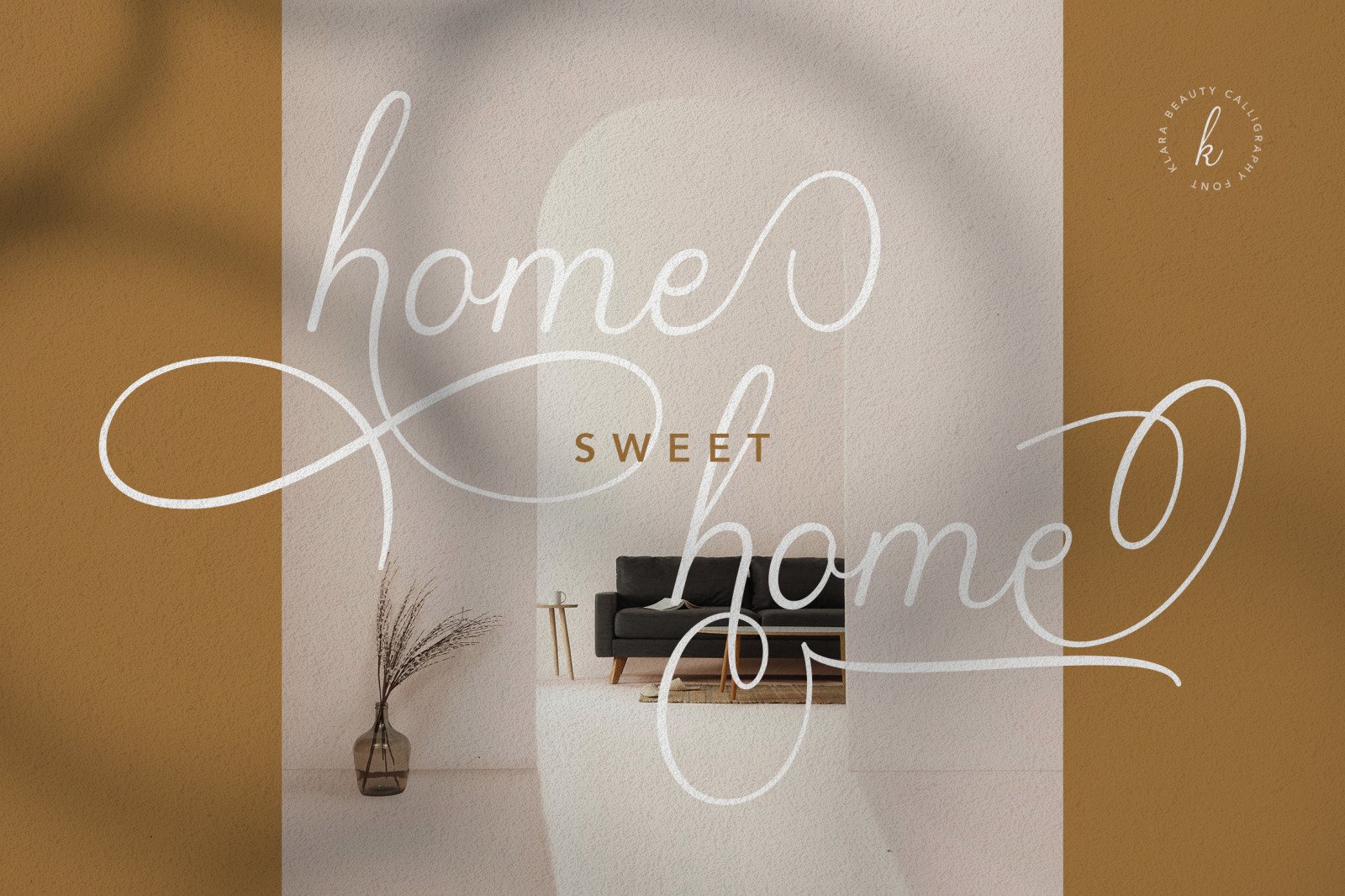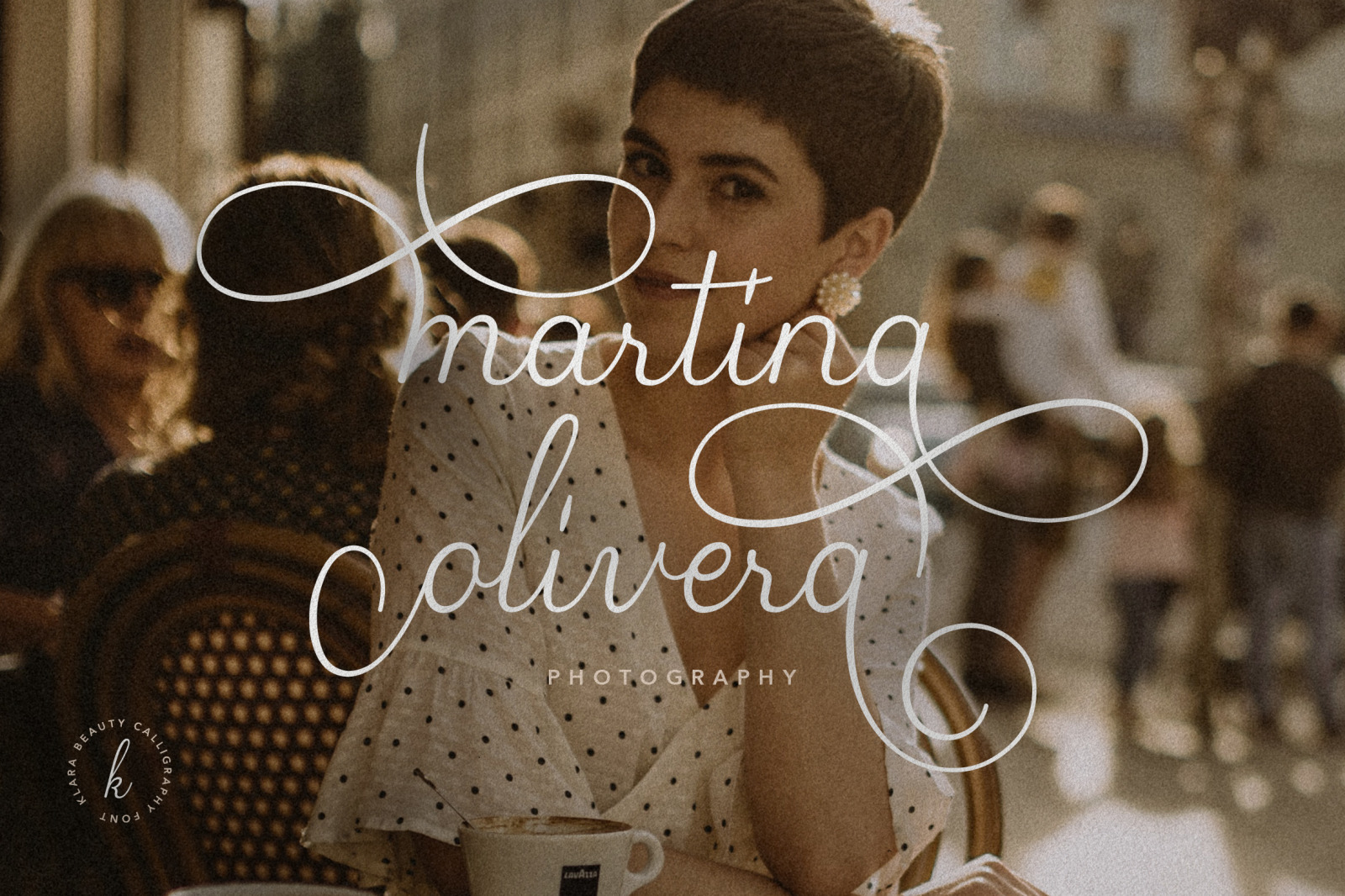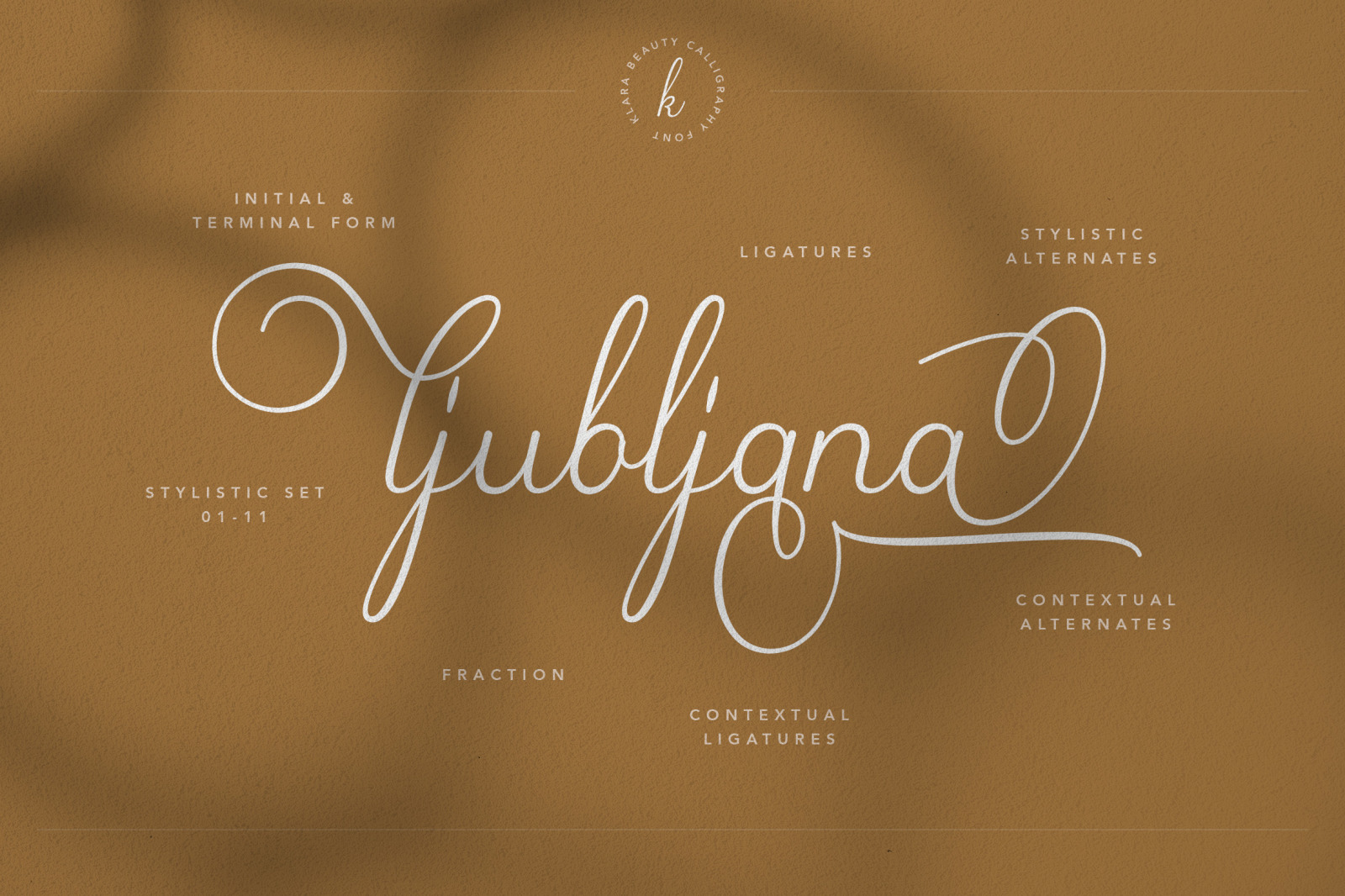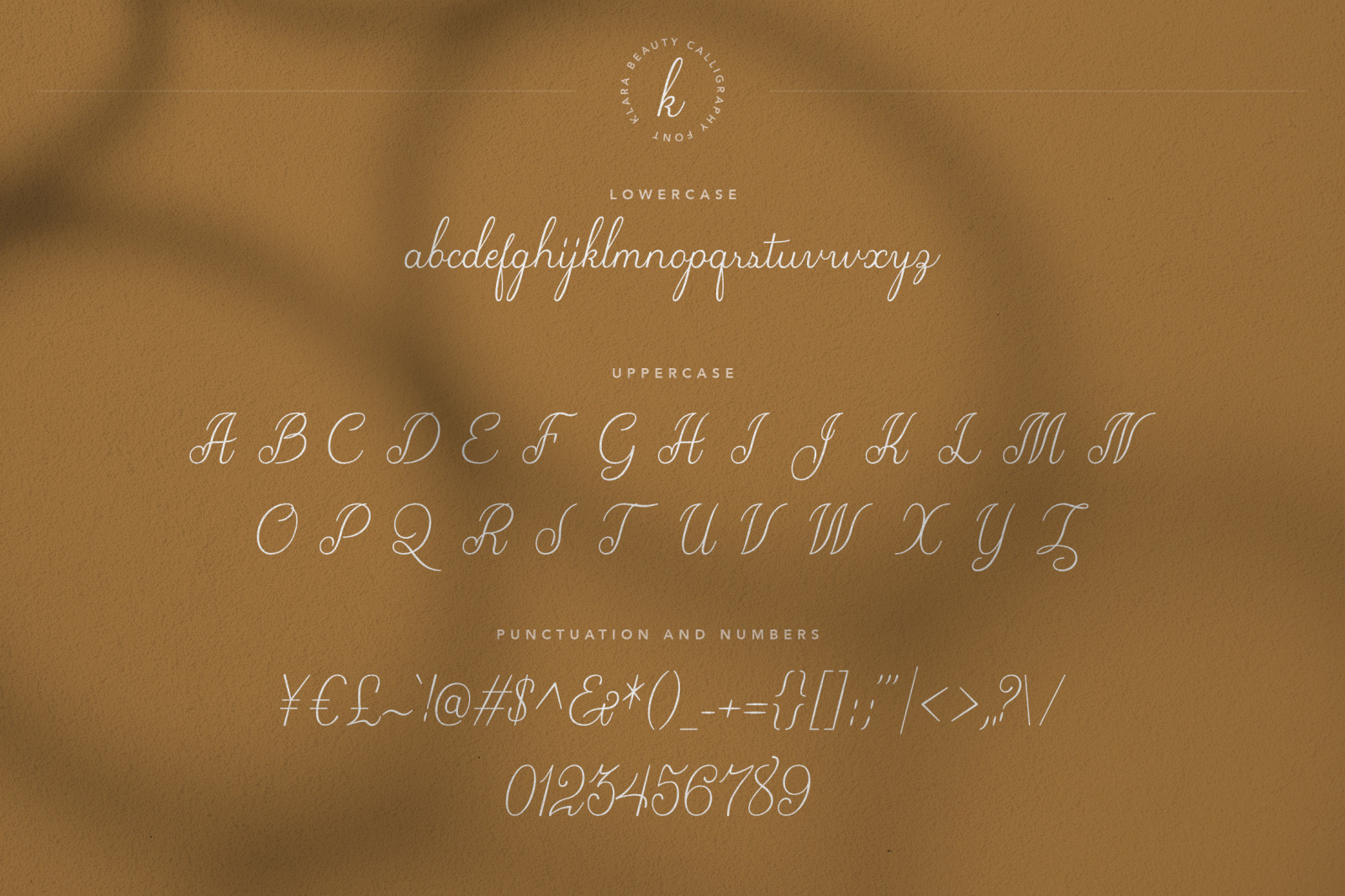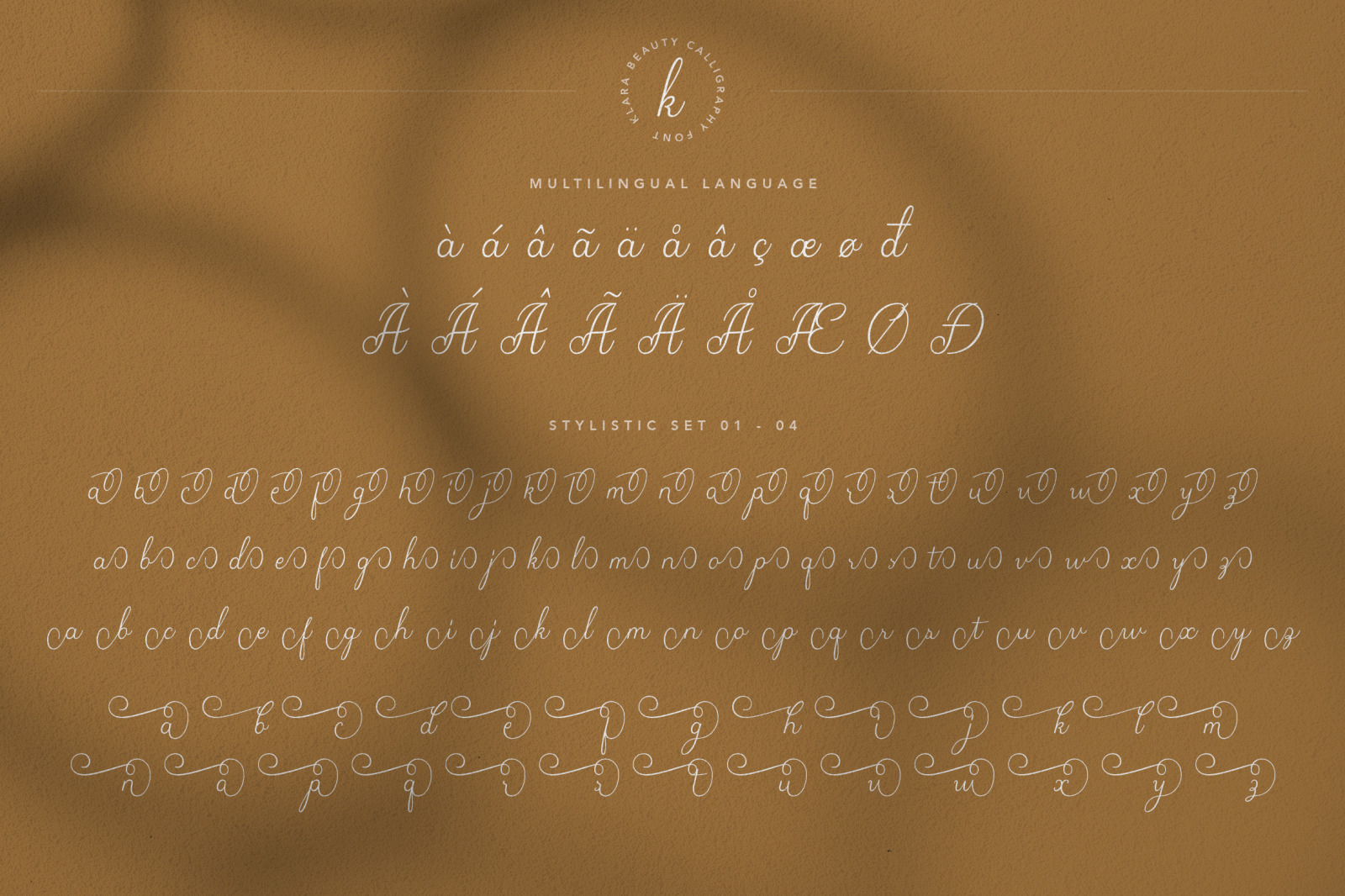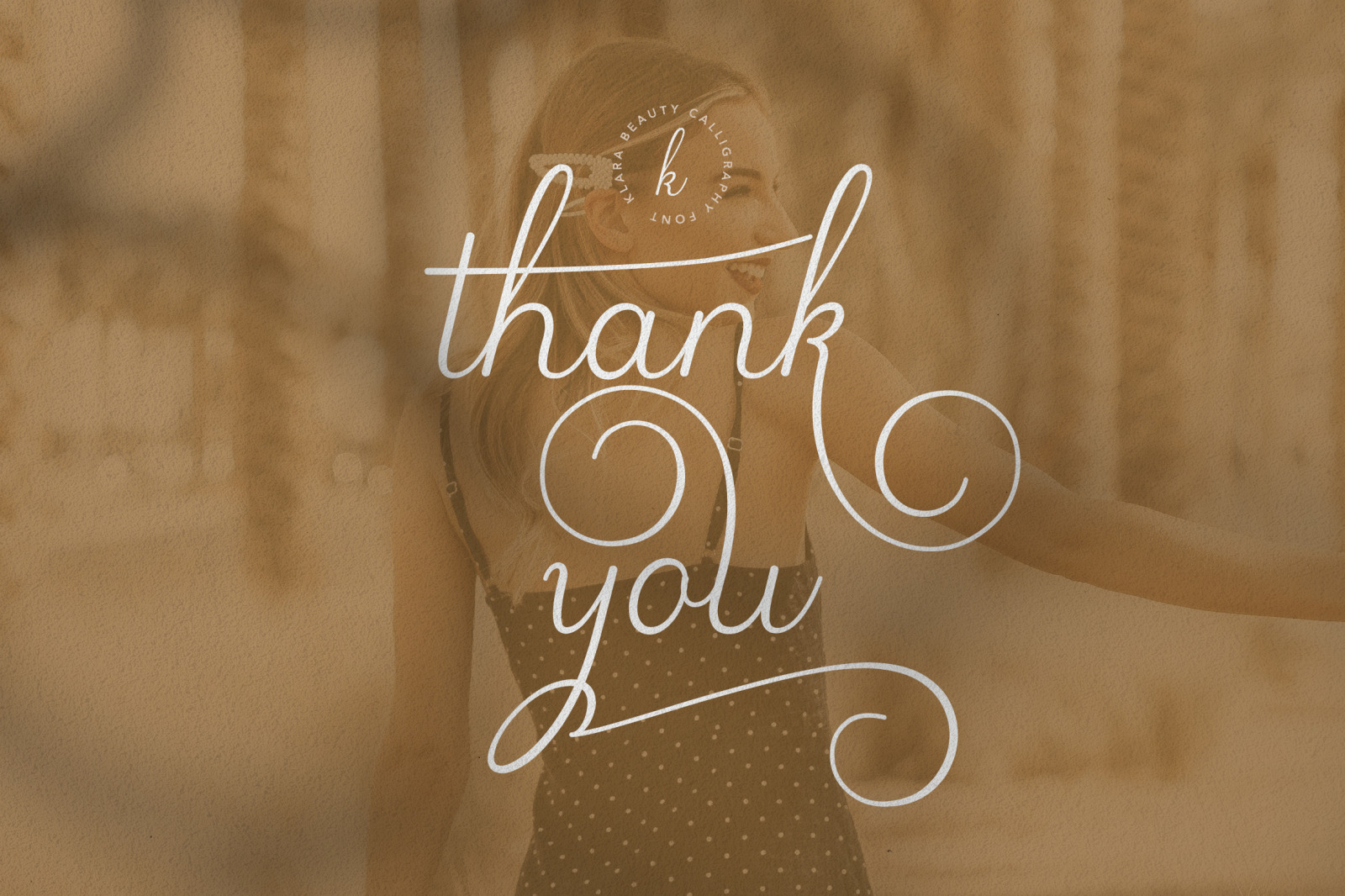
Klara | Beauty Calligraphy Font
Introducing our new beauty calligraphy font, Klara! Klara is perfect for those who are needing of elegance and stylish for font designs and well suited for wedding invitations, quoted-text, motivational quotes, and feminine branding. It's also perfect for elegant logos, packaging, woman's magazine, websites, and any other projects requiring a handwritten and luxurious touch. A wide range of alternates are included so you can give your design unique.
This font is support Opentype features:
+ Kerning
+ Access all alternates
+ Stylistic alternates
+ Contextual alternates
+ Initial form
+ Terminal form
+ Ligatures
+ Contextual ligatures for call Stylistic set 02 and 03 ( ~ + a = a.ss03 and a +`~ = a.ss02 )
+ Fraction
+ Stylistic set 01-11